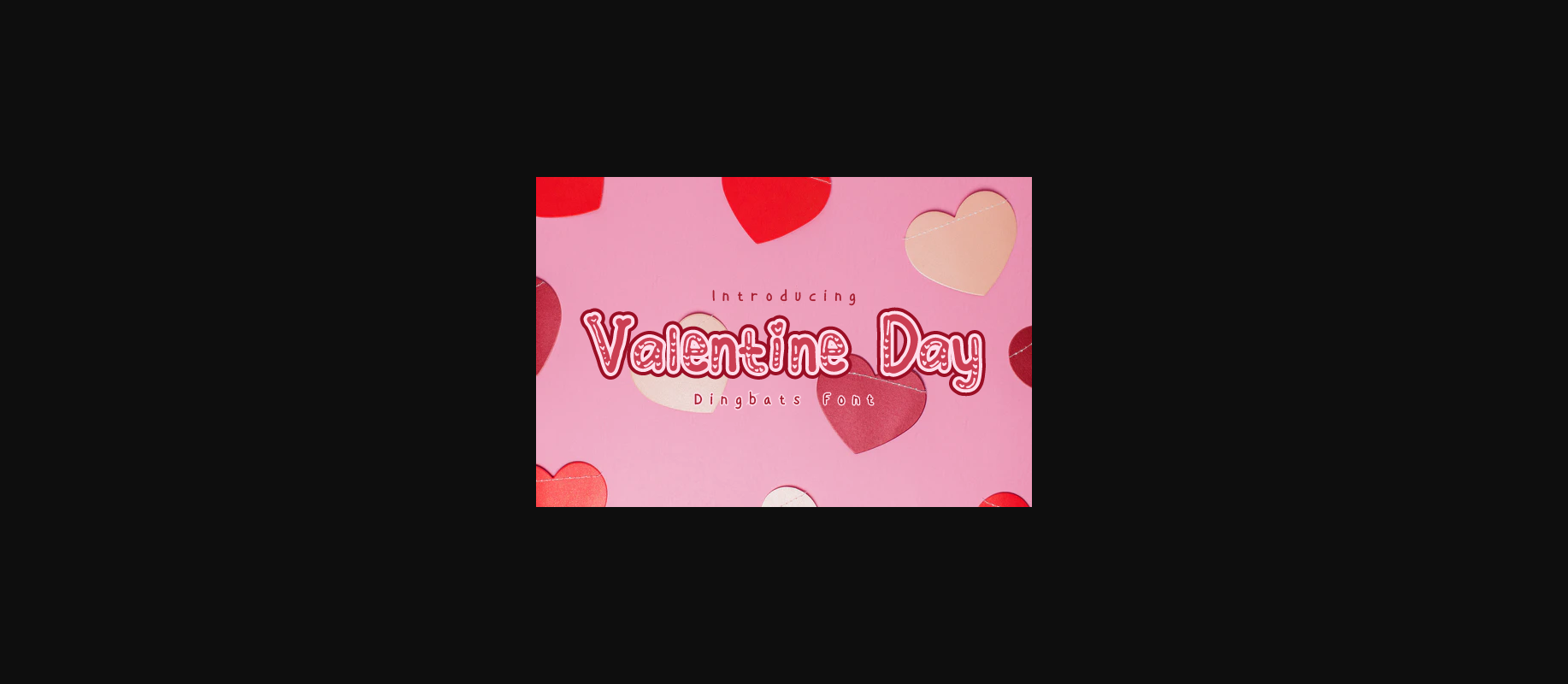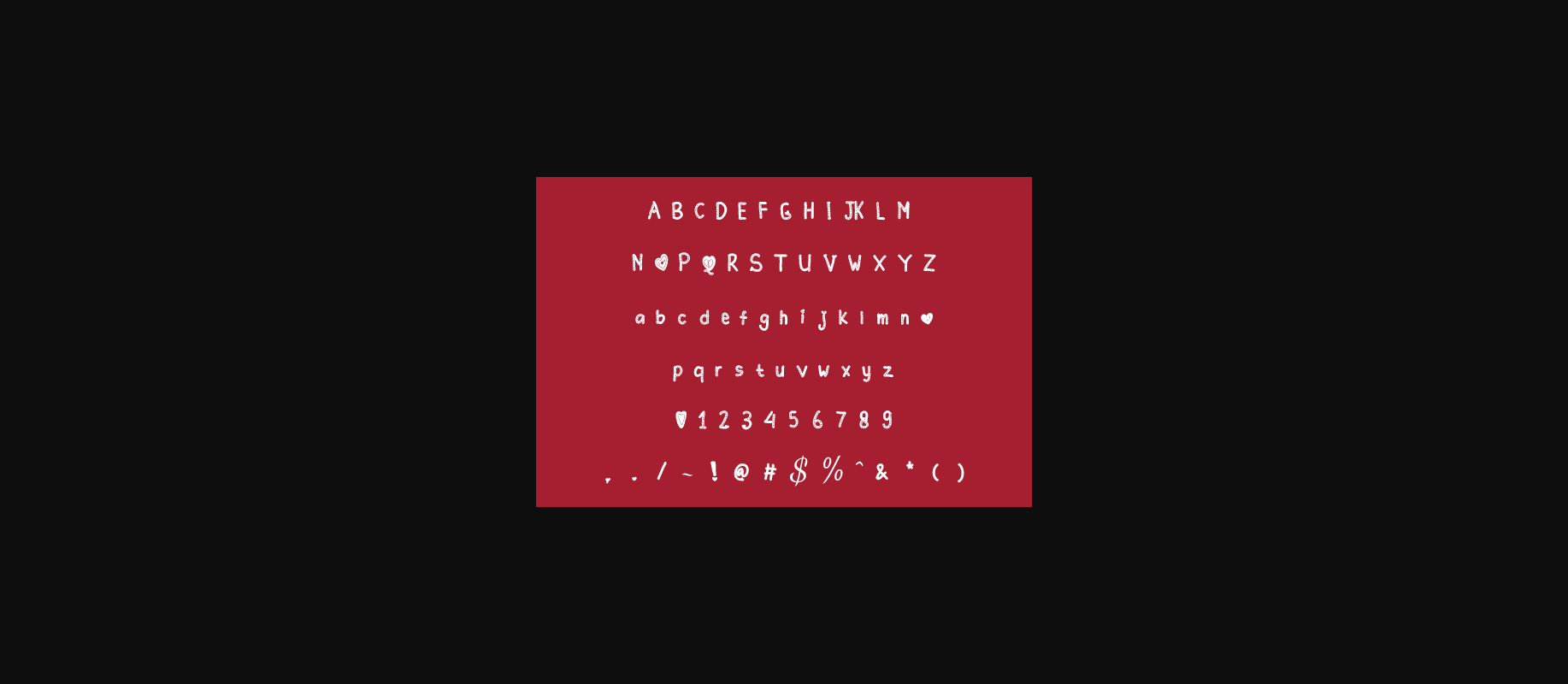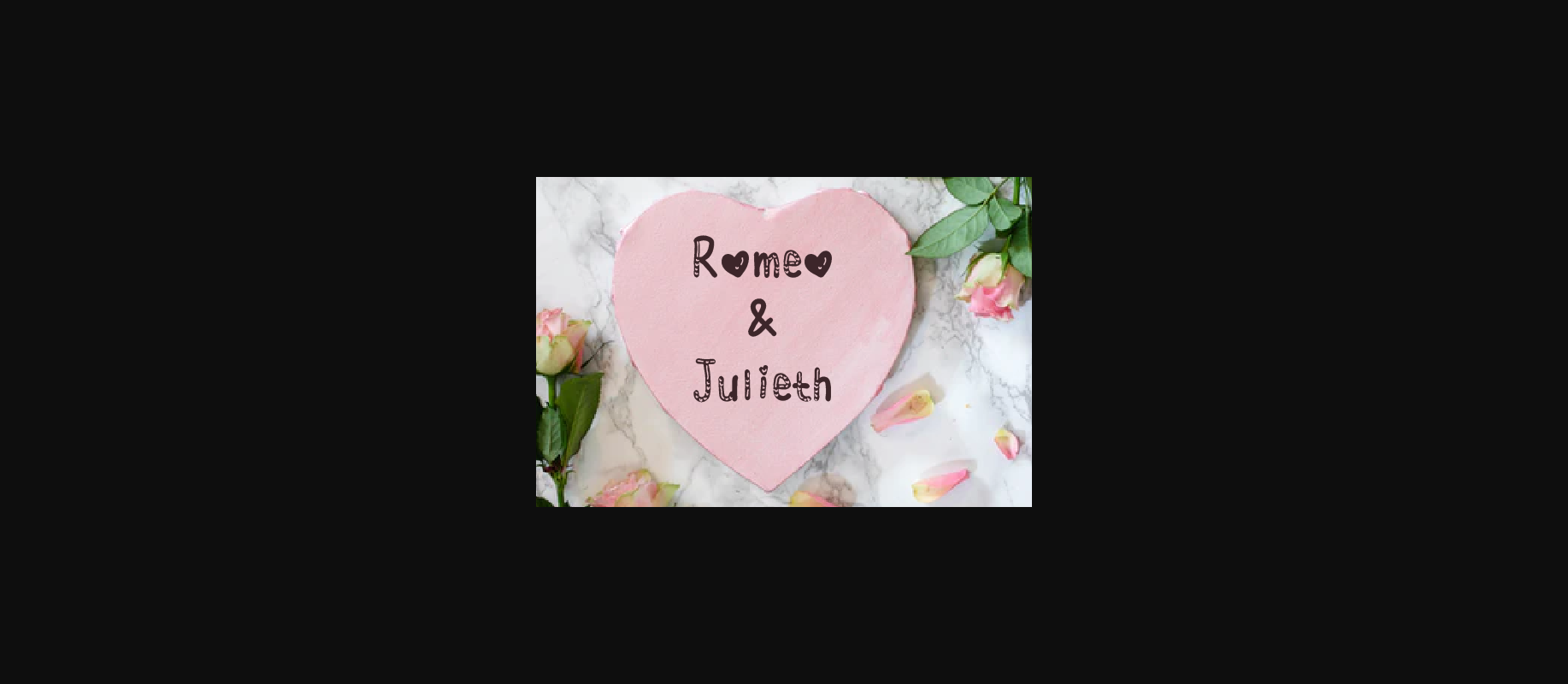
About Valentine Day Font
Valentine Day is a flowing decorative font, described by an elegant touch, perfect for your favorite projects. Fall in love with its incredibly distinct and timeless style and use it to create spectacular designs!